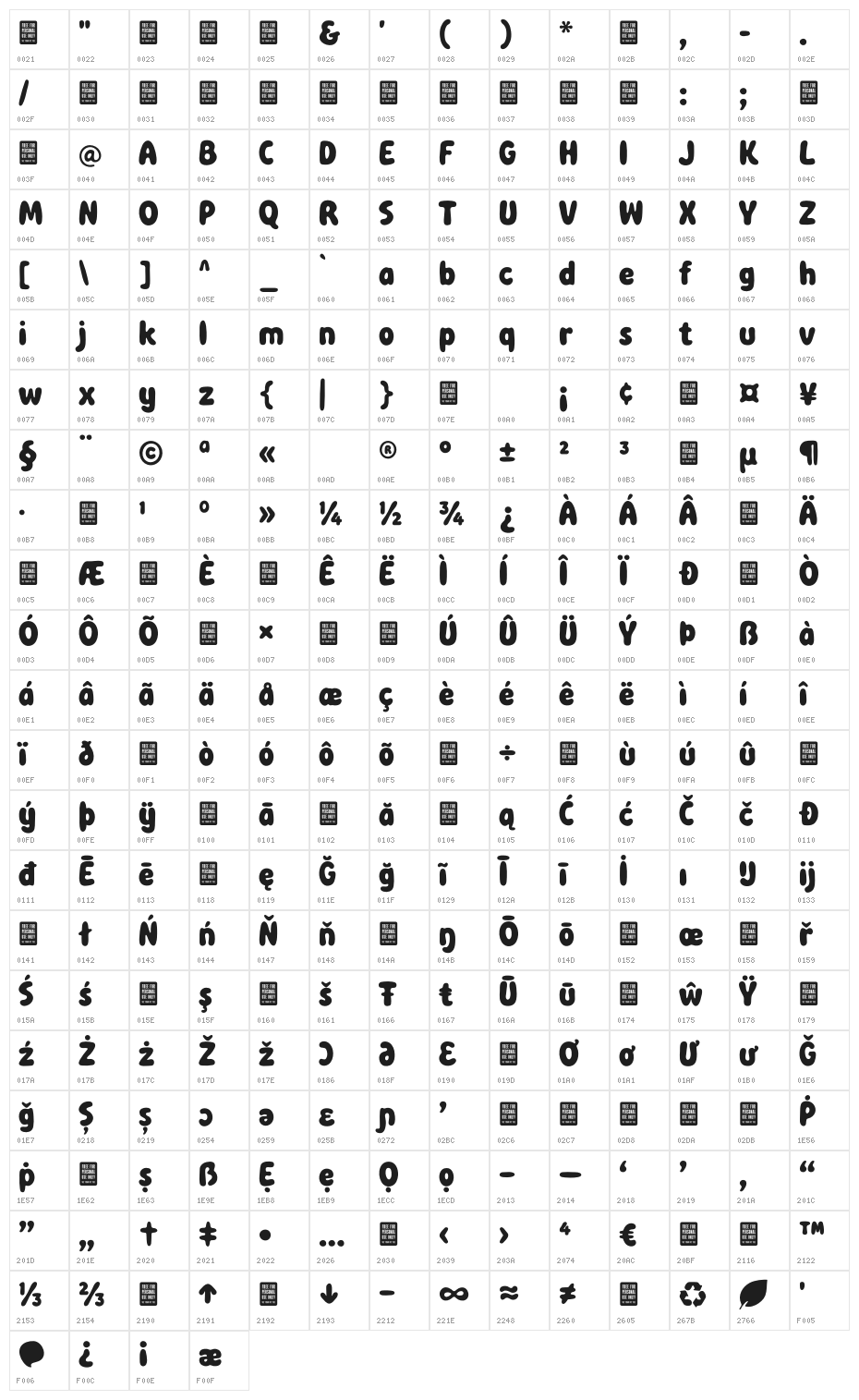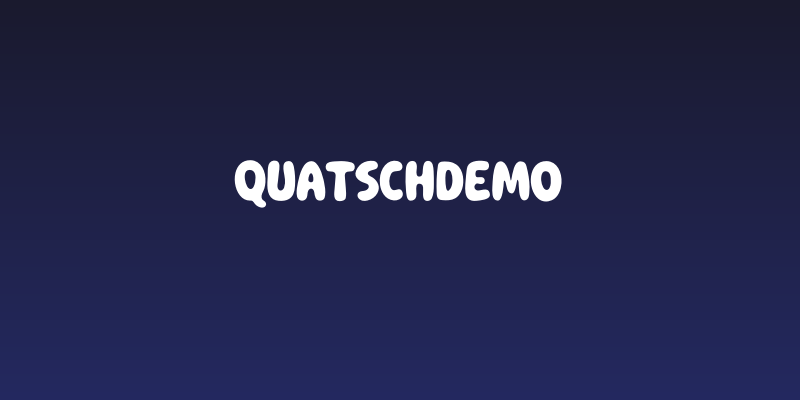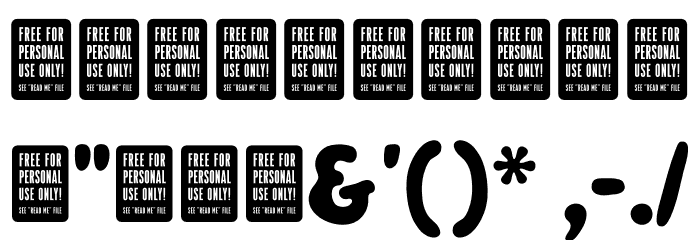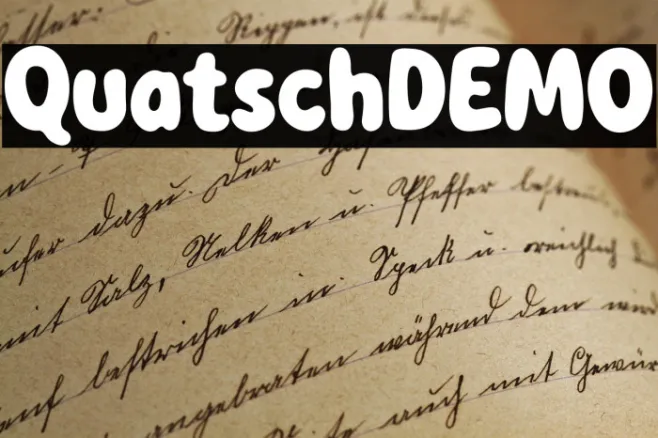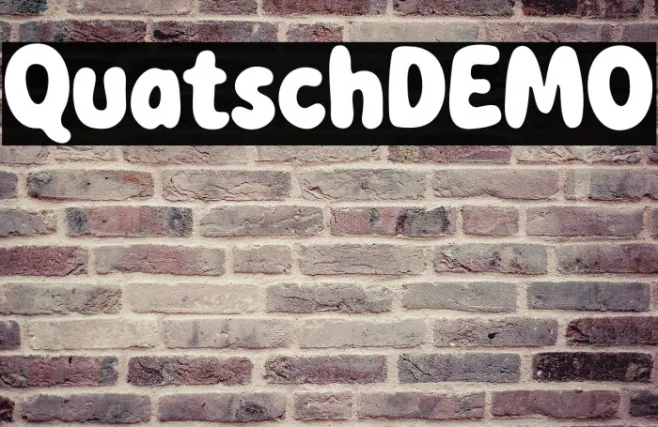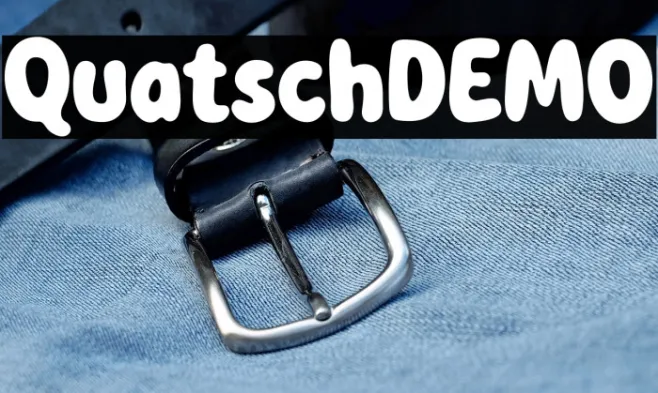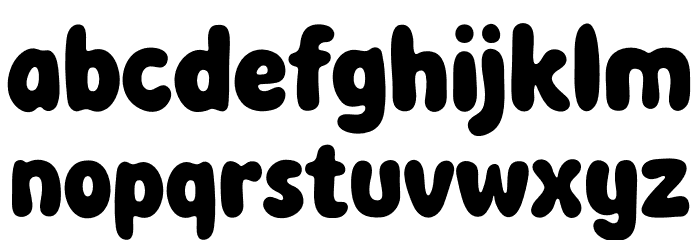
QuatschDEMO Font
QuatschDEMO Description
This playful and bold font features rounded, thick strokes that give it a friendly and approachable appearance. The characters are uniformly wide, with a consistent stroke weight that adds to its boldness. The overall style is reminiscent of hand-drawn or cartoon lettering, making it ideal for projects that require a fun and informal touch. The uppercase and lowercase letters maintain a consistent style, with the lowercase being slightly more compact. The numbers and special characters are equally bold and rounded, ensuring a cohesive look across all text elements.
| Overall Style | Playful, Informal |
| Proposed Projects | Ideal for children's books, playful branding, posters, and informal invitations. |